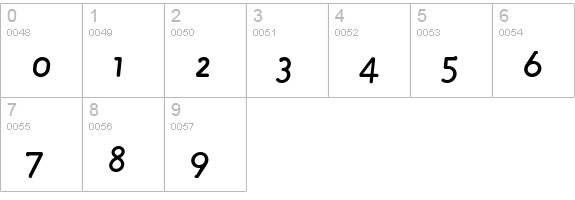
Engine-CapsItalic Font Details
Engine-CapsItalic font is a sleek and modern typeface that exudes sophistication and style. Its elegant italic design adds a touch of flair to any project, making it perfect for branding, logos, and editorial designs. With its clean lines and distinctive letterforms, Engine-CapsItalic is sure to make a statement. And the best part? This gorgeous font is available for free download at FontsMarket.com. You can easily add Engine-CapsItalic to your collection of fonts and start using it in your designs right away. Don't miss out on this fantastic opportunity to elevate your projects with this stunning typeface. Download Engine-CapsItalic now and let your creativity flow!